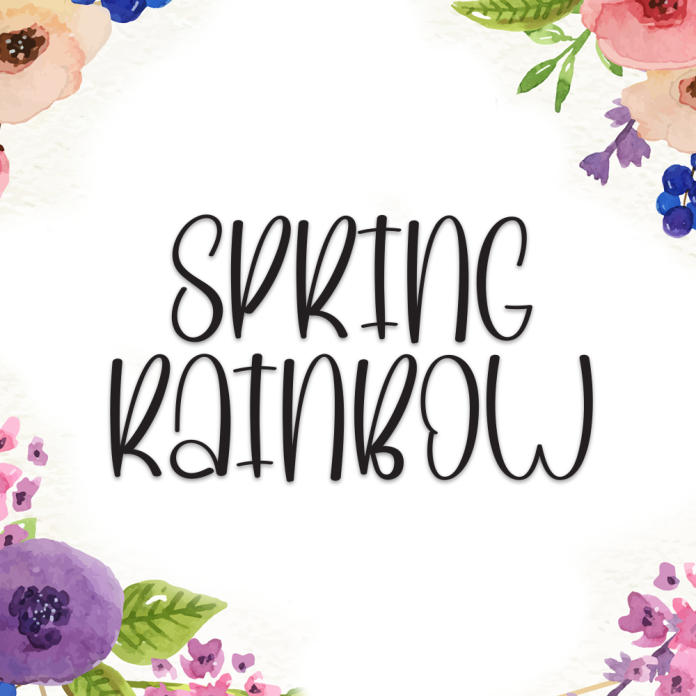
Spring Rainbow is a vibrant and cheerful display font that captures the joyful essence of blooming flowers and colorful skies. With bold curves and a playful design, this font is made to stand out in fun and festive projects.
Whether you're working on party invitations, seasonal posters, children’s books, or creative branding, Spring Rainbow adds a burst of personality and warmth to your typography.
Bold display style with whimsical shapes
Bright, happy, and seasonally inspired
Perfect for spring-themed designs and kids’ content
Let your creativity bloom with the radiant charm of Spring Rainbow!